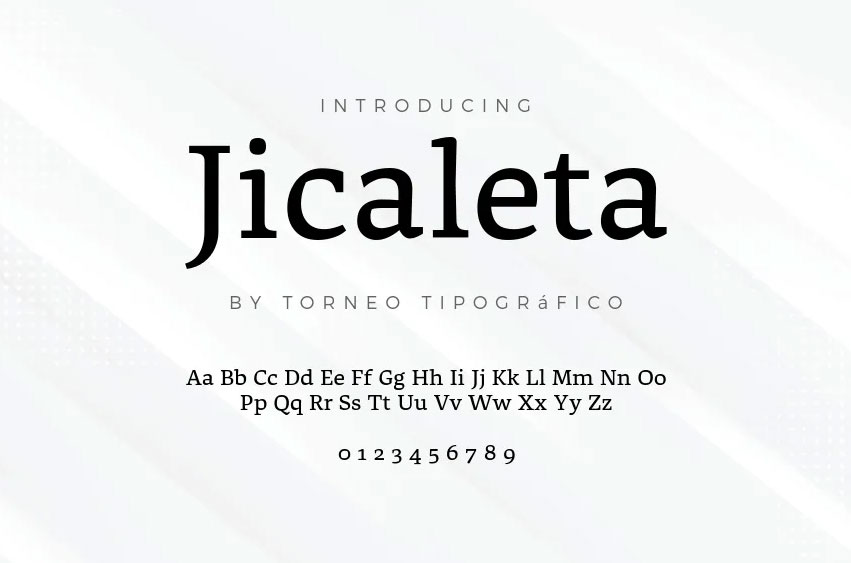
Jicaleta Font
Jicaleta Font is an ideal serif font specifically crafted for lengthy texts and digital usage. Its distinctive characters feature horizontal strokes and possess a rebellious calligraphic flair.
The font name was inspired by the resemblance of its forms to the beloved Mexican street food. This font has been designed by Torneo Tipográfico, and its stylish serif style will add charm and elegance to your digital projects.